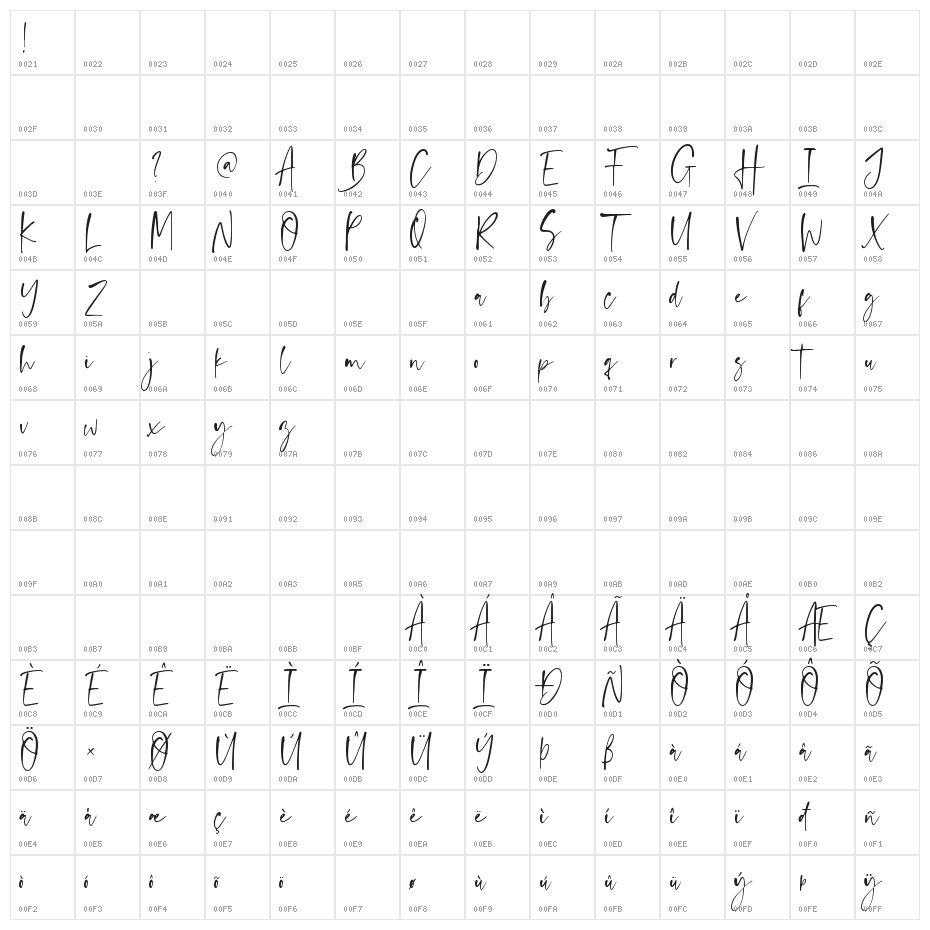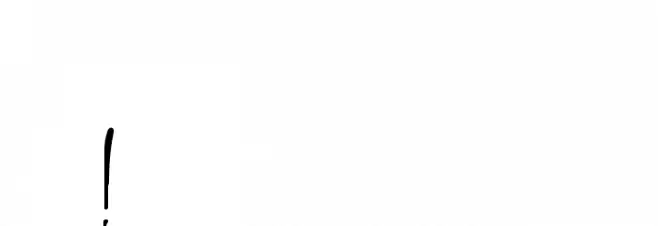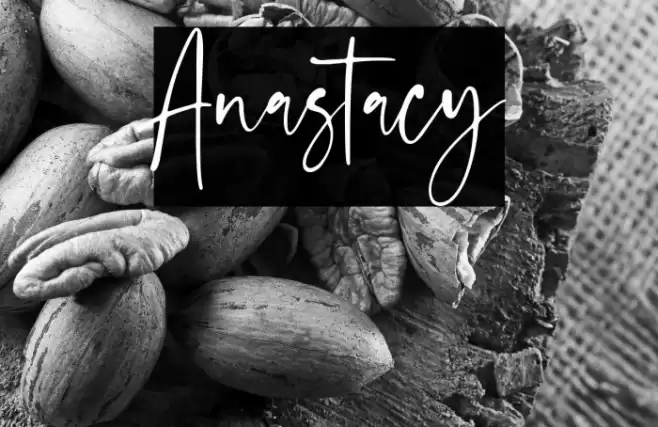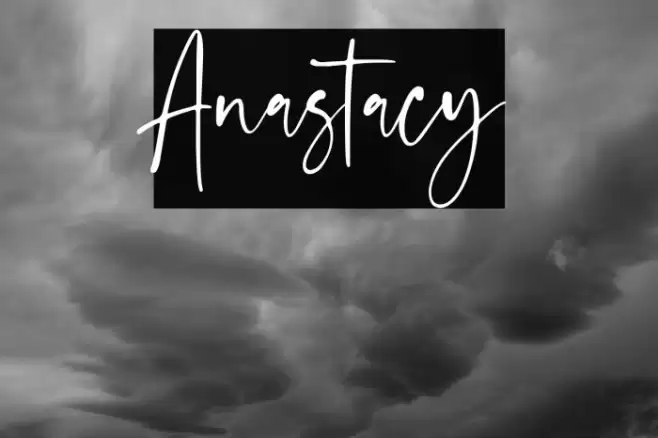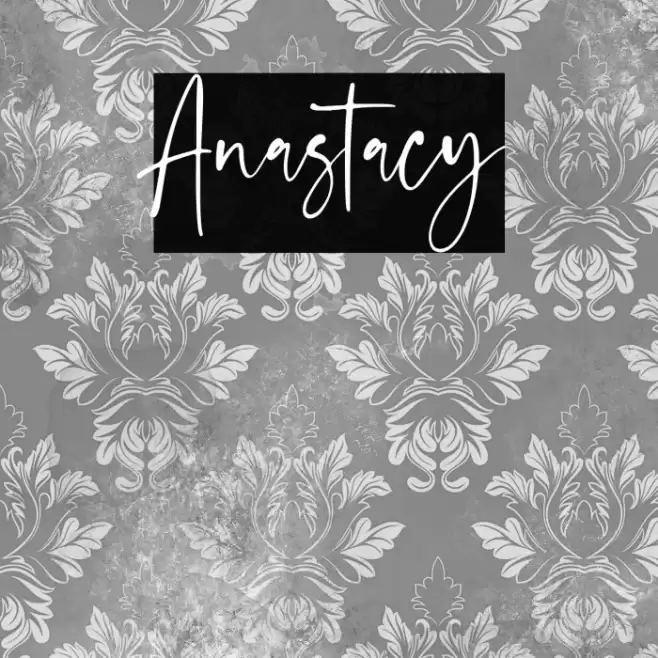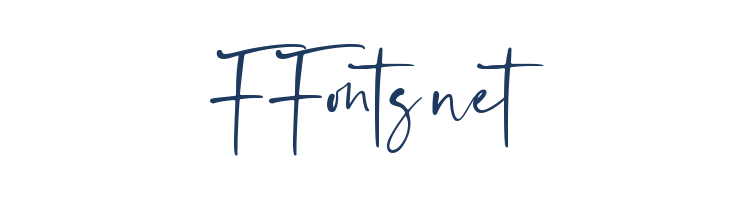
Anastacy Font
Anastacy Description
This font features a dynamic and expressive handwritten style, characterized by its fluid and organic strokes. The uppercase letters are tall and slightly narrow, with a playful yet elegant flair. The lowercase letters maintain a consistent flow, enhancing the script-like quality. The overall appearance is casual yet sophisticated, making it suitable for creative and artistic projects. The numbers and special characters are crafted with the same attention to detail, ensuring a cohesive look across all elements.
| Proposed Projects | Ideal for wedding invitations, greeting cards, branding projects, and social media graphics. |